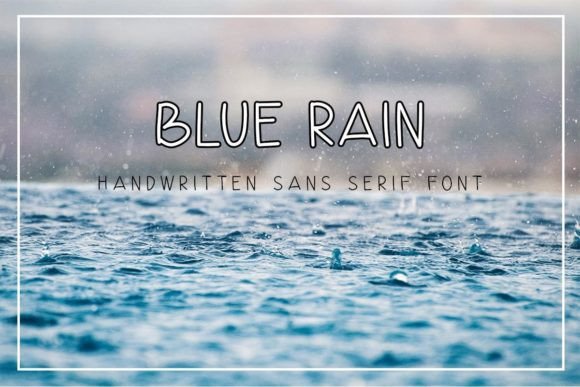
Prepare to immerse yourself in the world of elegance and charm with Blue Rain Font, a sans-serif handwritten masterpiece designed to capture the essence of refined beauty. Ira Natasha, the creative force behind this remarkable font, has poured her passion into each stroke and curve, resulting in a font that exudes grace and sophistication.
Indulge your artistic flair with Blue Rain Font and let your imagination run wild. Whether you're a designer seeking to elevate your branding or a passionate creator seeking the perfect font for your latest project, Blue Rain Font will leave you spellbound. Its delicate lines and flowing characters will add a touch of enchantment to your creations, making them stand out from the ordinary.
Unleash the boundless potential of Blue Rain Font and explore a world of creative possibilities. Perfect for logos, quotes, lettering, or cards, this font will bring a touch of elegance to your designs. Its versatility lies in its ability to effortlessly blend with various design styles, allowing you to create cohesive and visually appealing projects.
Embrace the charm of Blue Rain Font and elevate your projects to new heights. With its captivating handwritten style, this font will make your designs shine with a unique charm that will leave a lasting impression.